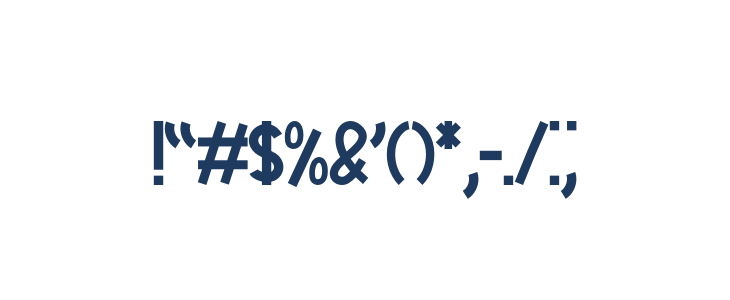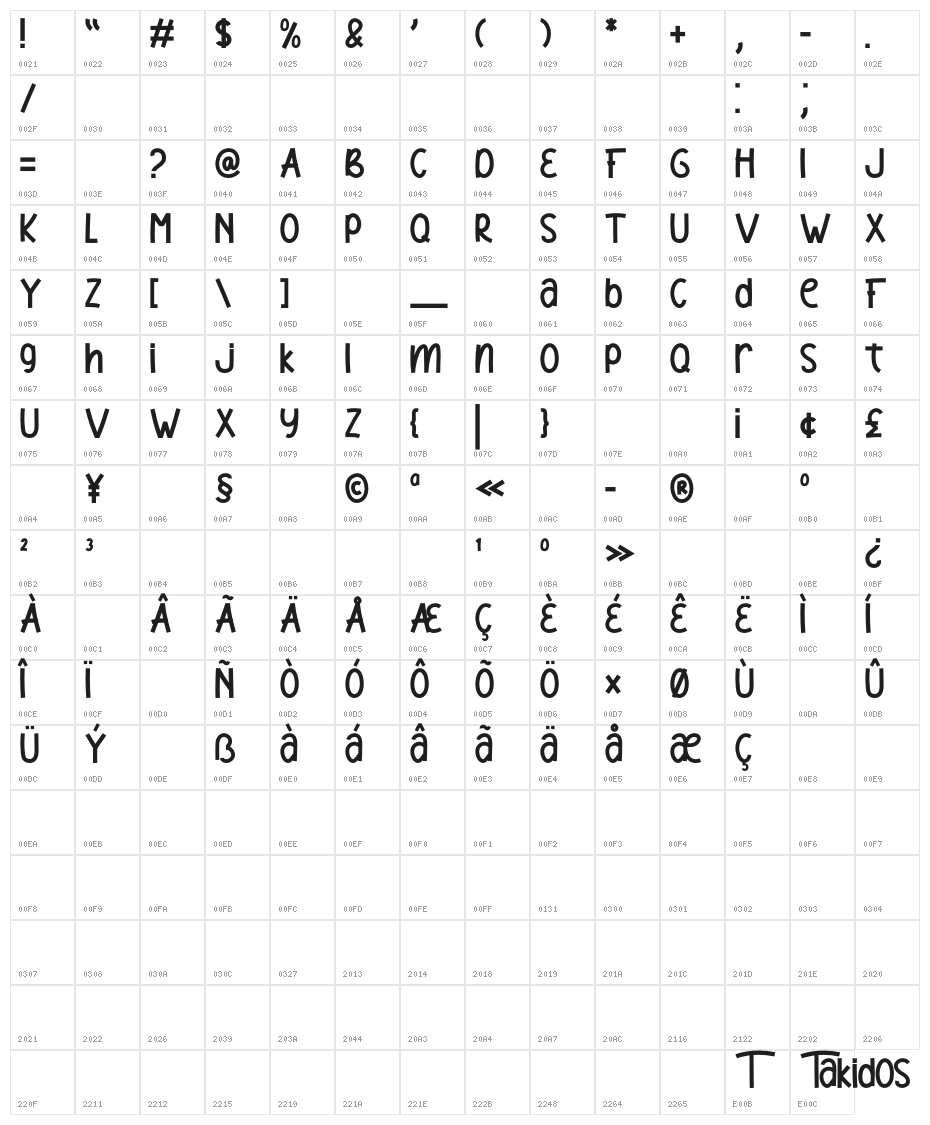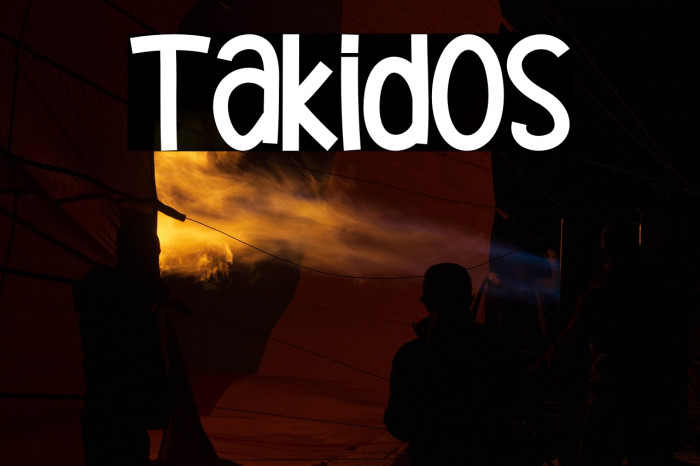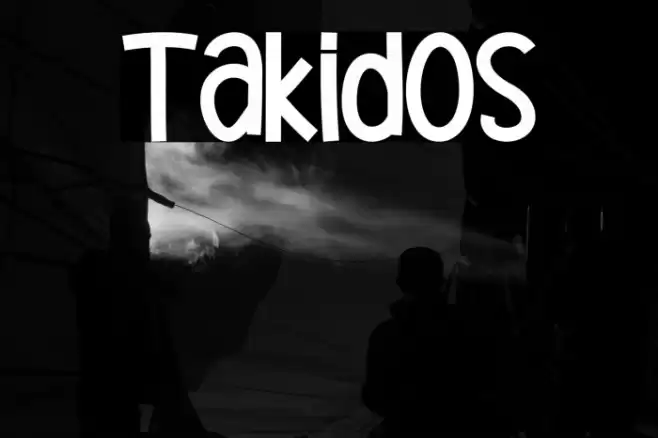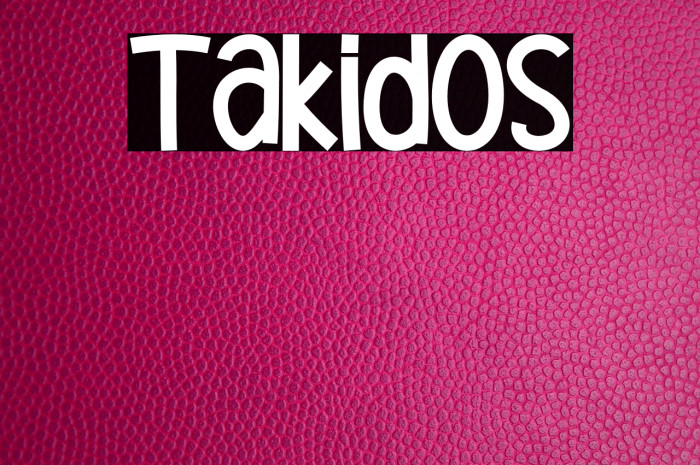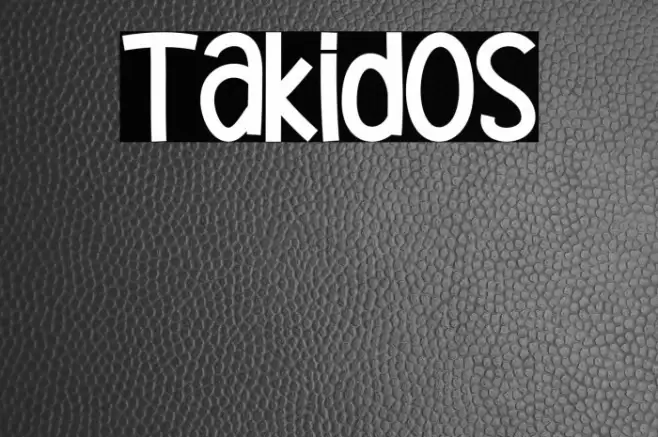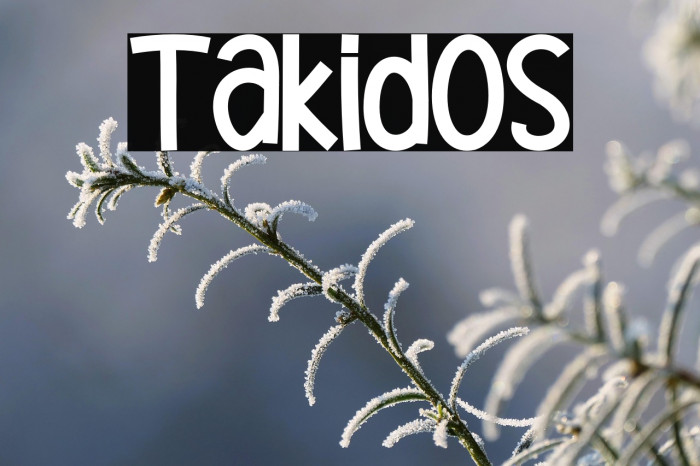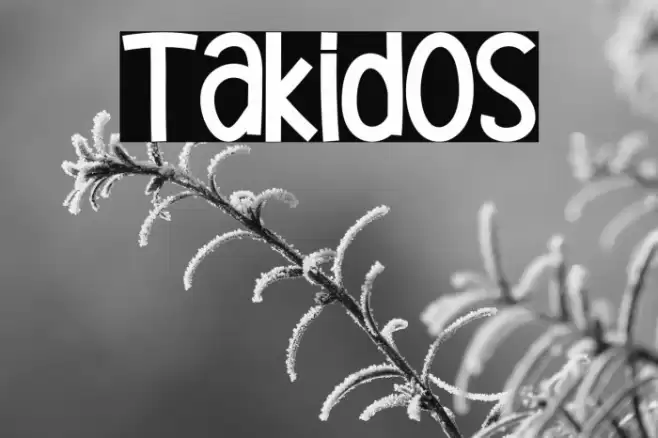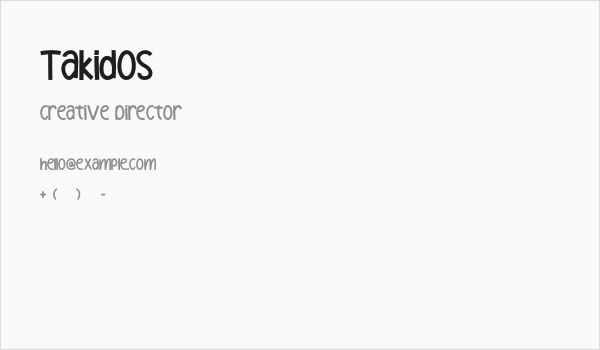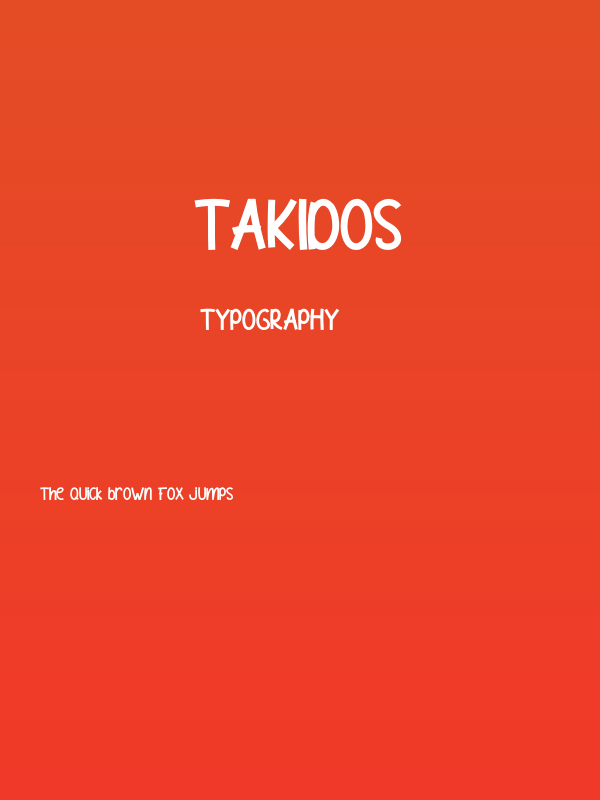
Takidos Font
Takidos Description
This playful and bold font features a whimsical, hand-drawn style with exaggerated curves and a slightly uneven baseline, giving it a lively and informal appearance. The uppercase letters are robust and dynamic, while the lowercase letters maintain a consistent flow, adding to the font's charm. The numbers and special characters are equally expressive, making them suitable for creative designs. The font's unique character shapes and bold strokes make it stand out, ideal for projects that require a fun and engaging visual impact.